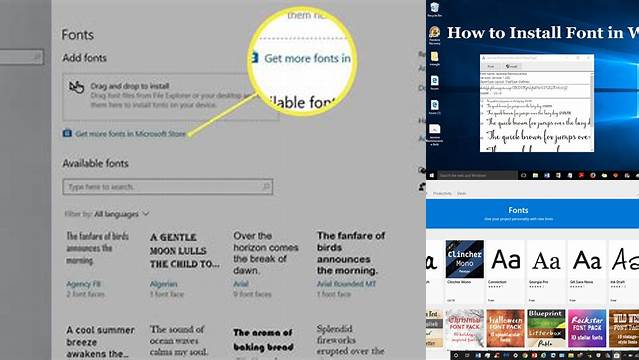
Install Fonts In Windows 10: The Easy Guide
Installing new fonts in Windows 10 can seem daunting, but trust me, guys, it's super easy! Whether you're a designer needing that perfect typeface or just someone who loves customizing their computer, this guide will walk you through everything you need to know. We'll cover various methods, troubleshooting tips, and even where to find some awesome fonts. So, let's dive in and make your Windows 10 look even better!
Why Install New Fonts?
Before we jump into the how, let's quickly talk about the why. Why would you even want to install new fonts? Well, fonts play a massive role in how we perceive text and design. Different fonts can evoke different emotions, set a specific tone, and enhance readability. Think about it: a playful, handwritten font wouldn't exactly scream professionalism in a business report, right?
Fonts are essential for branding: If you're running a business, using consistent fonts across your marketing materials (website, social media, presentations) helps build brand recognition. Imagine using Comic Sans on your company's logo – not the best look, is it? By installing custom fonts, you can ensure your brand's visual identity is spot-on.
Fonts enhance creativity: For designers and creatives, having a wide selection of fonts is like having a full palette of colors. It allows you to express your ideas more effectively and create visually stunning designs. The right font can transform a simple layout into a masterpiece. Plus, experimenting with different fonts is just plain fun!
Fonts improve readability: Sometimes, the default fonts just don't cut it. They might be too small, too narrow, or simply not visually appealing. Installing new fonts can improve readability, making it easier on your eyes and more enjoyable to read long documents or articles online. Think about choosing a clear, sans-serif font for website body text – it can make a huge difference in user experience.
Fonts add personalization: Let's be honest, who doesn't love a bit of personalization? Installing custom fonts allows you to make your computer truly yours. Whether you're customizing your desktop, creating unique documents, or simply want your emails to stand out, new fonts can add that personal touch. So, if you're ready to take your Windows 10 experience to the next level, keep reading!